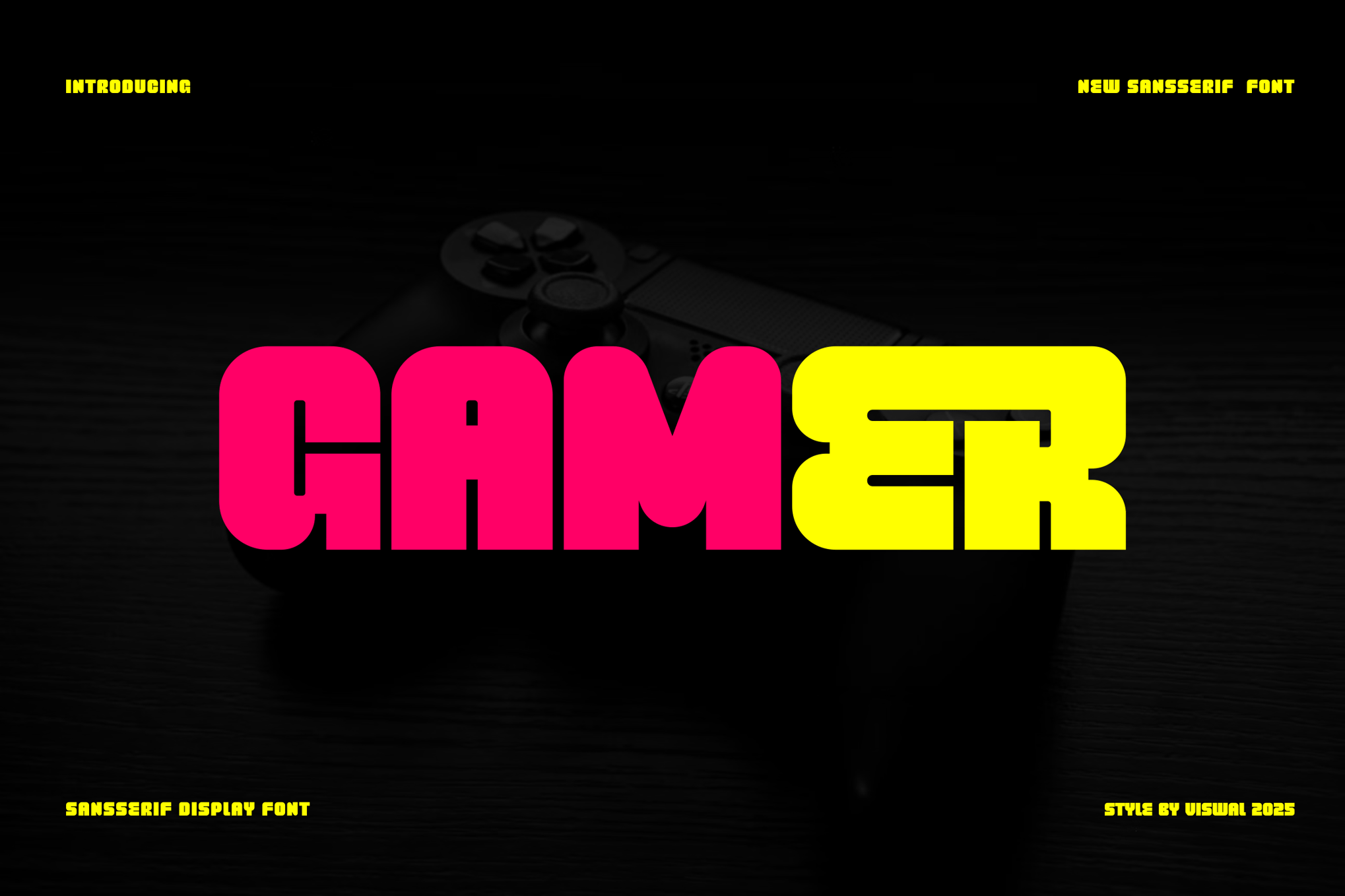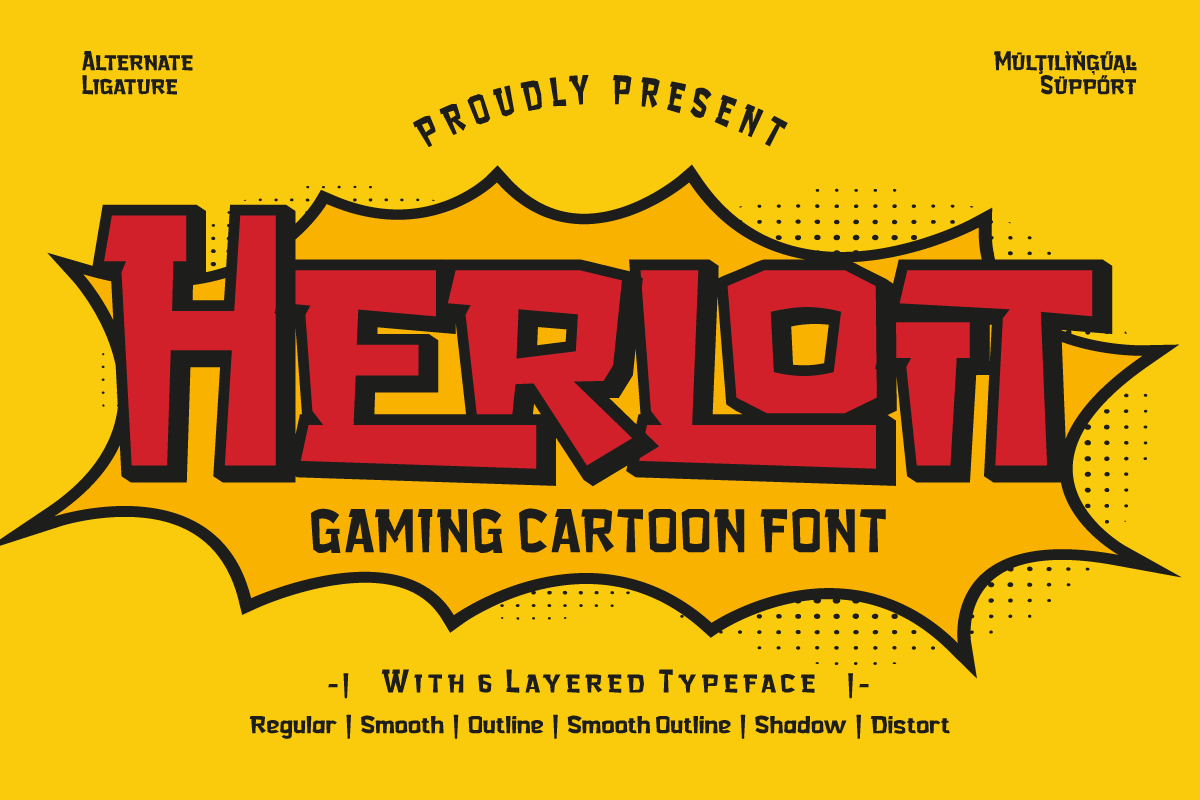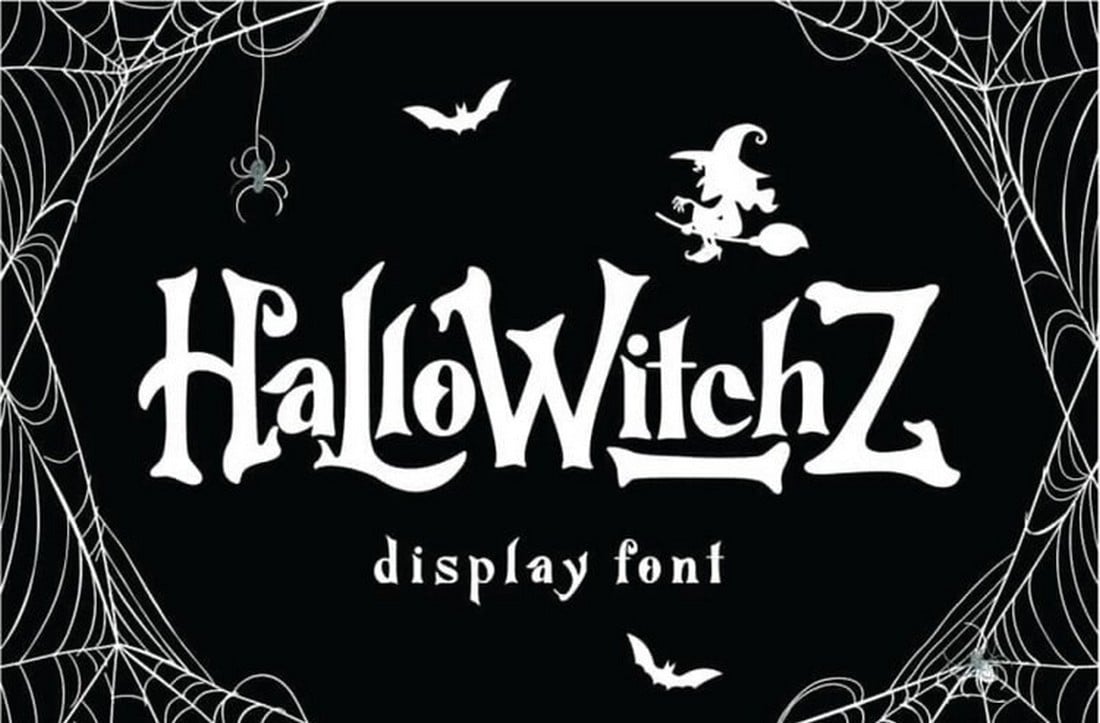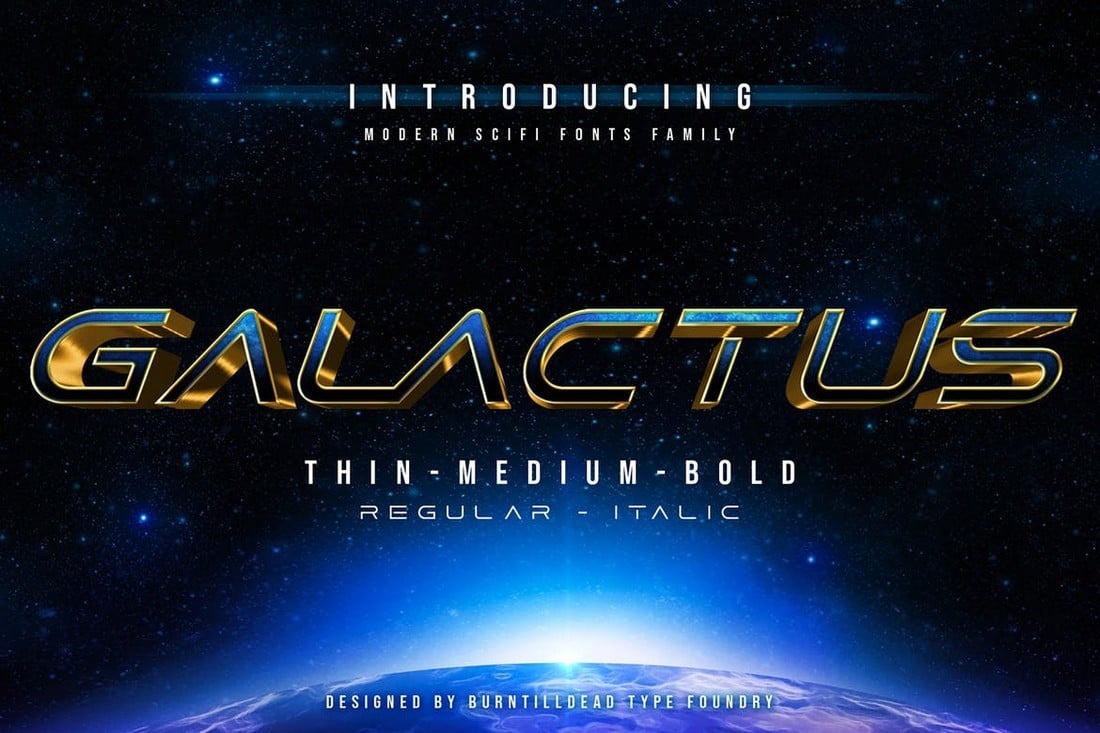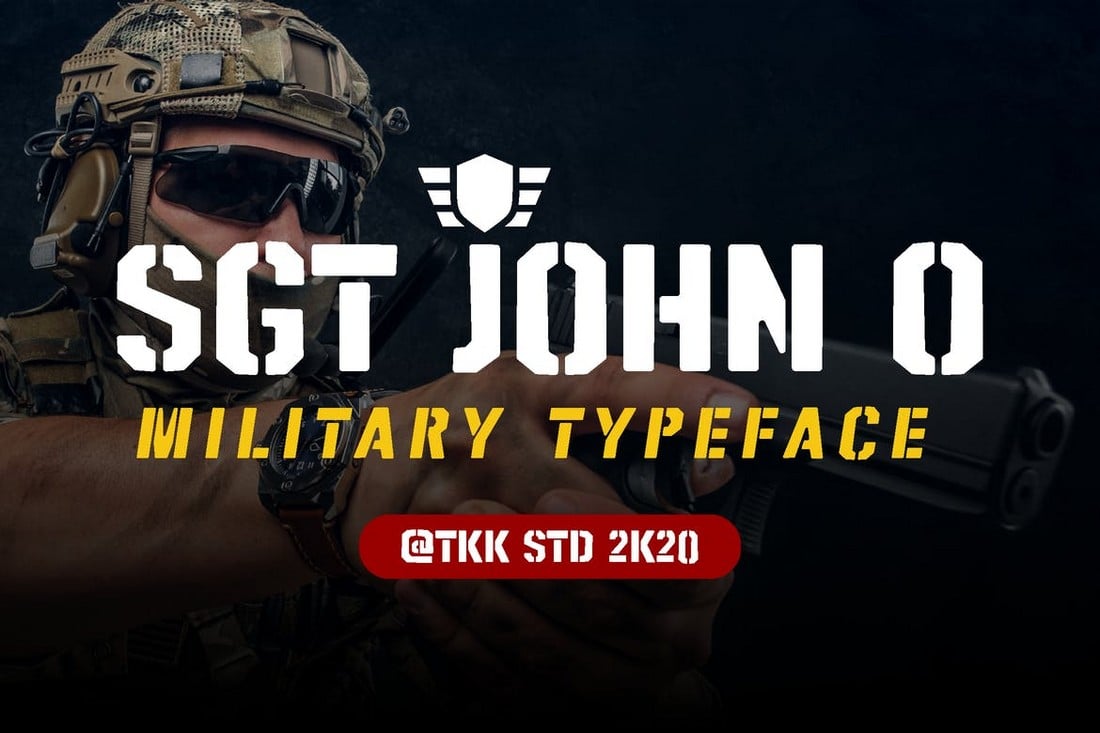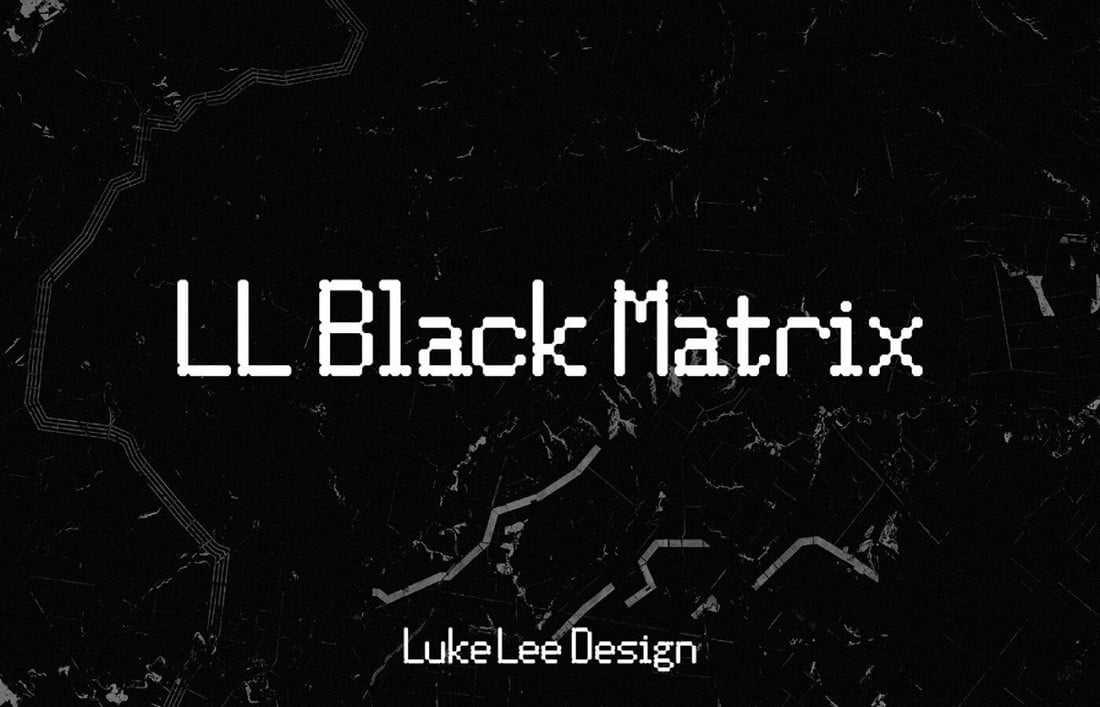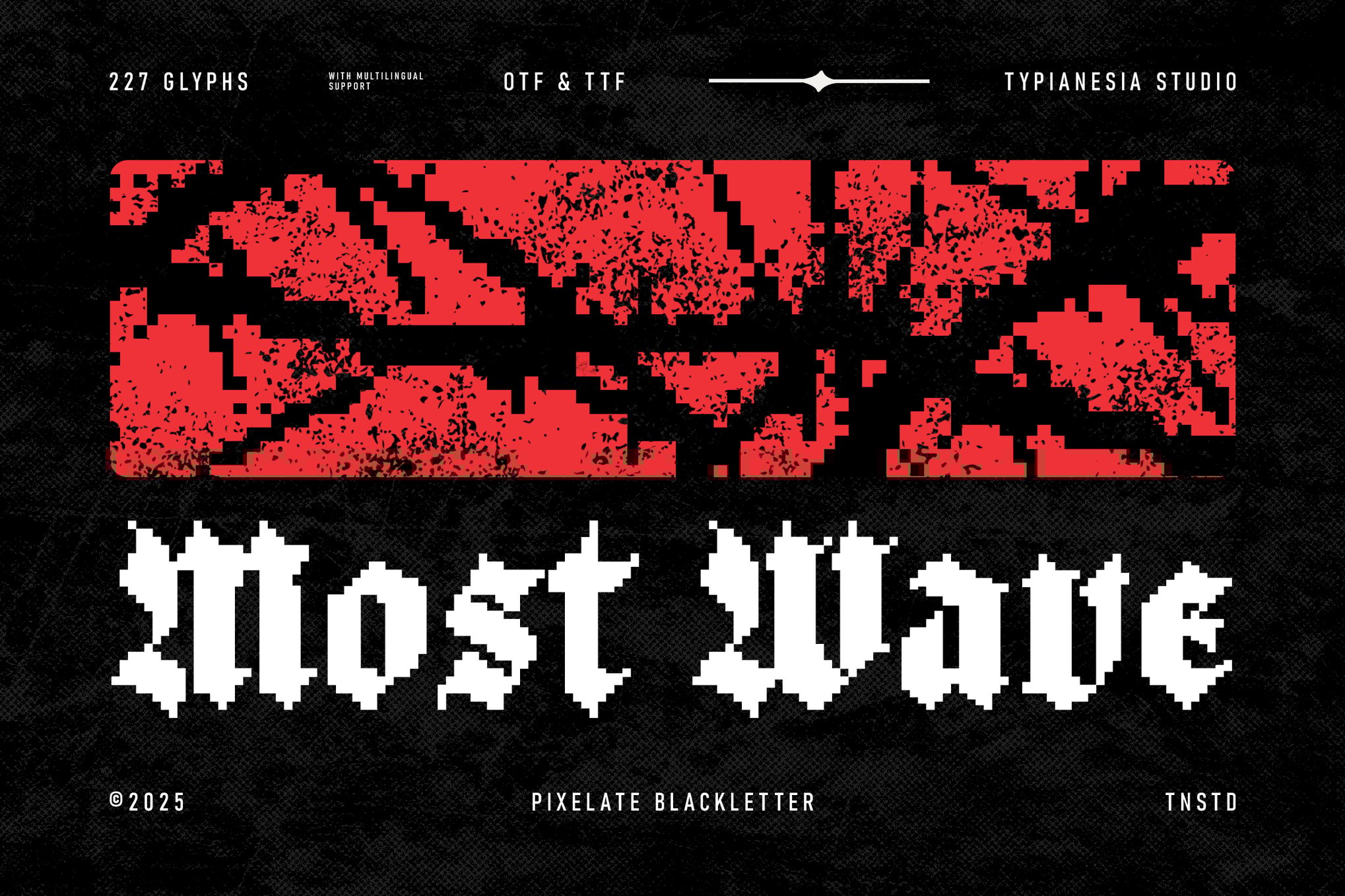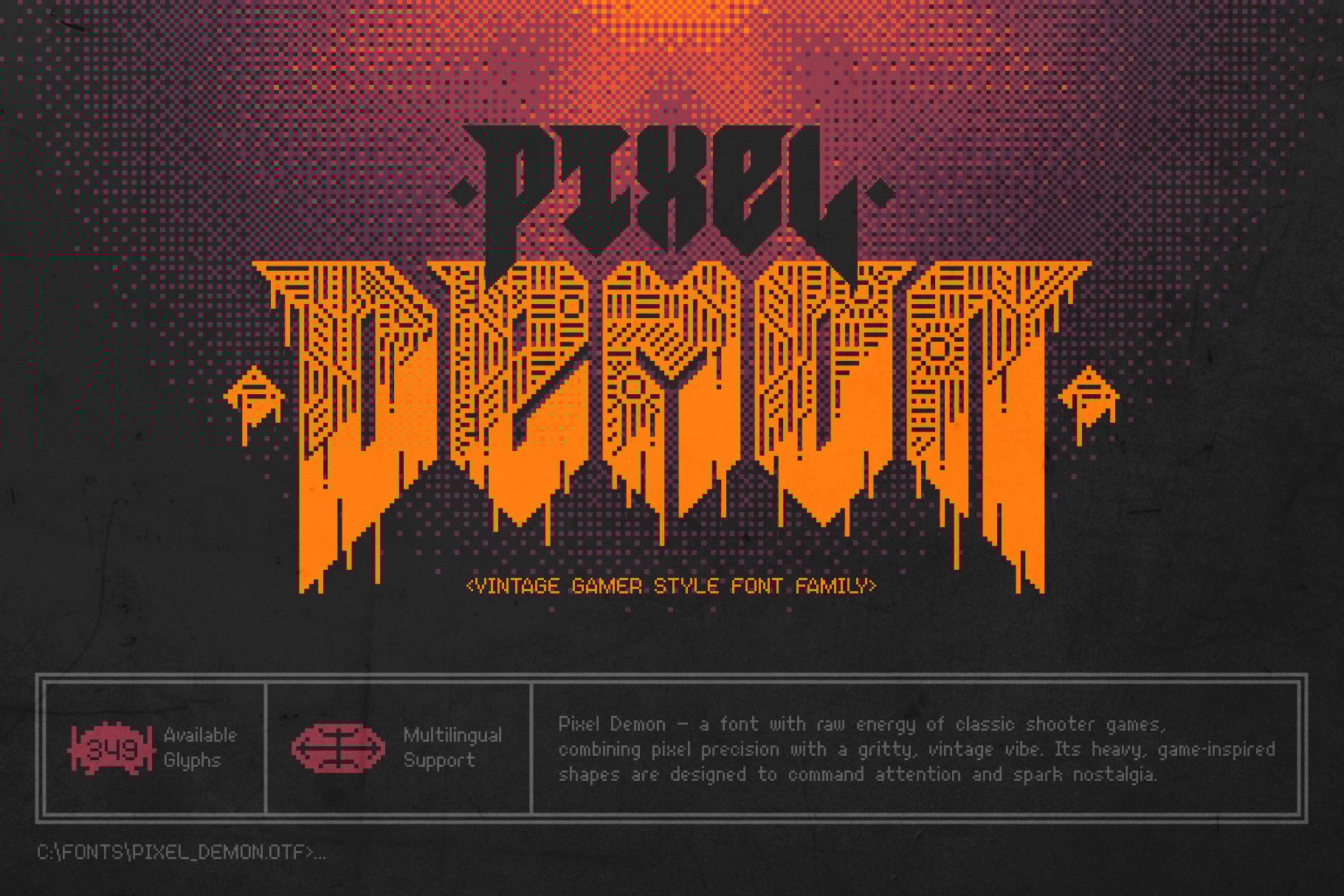
The gaming industry is now even bigger than Hollywood and it continues to grow every year. Great designs are in fact partly responsible for the success of many great video games.
Whether it’s the colorful graphics on a landing page website, social media posts used to promote games, or the preview images on the App Store page, it’s these designs that attract more people to download games and try them out in the first place.
If you’re a designer working on promoting a game, finding an appropriate font should be one of your top priorities. We handpicked some cool gaming fonts to help you get started.
These fonts come in all kinds of styles and designs. You can use them to design promotional material for games or even craft titles for your YouTube covers and Twitch profiles. Check them out below.
Game Paused – Modern Gaming Font
This font collection offers six unique gaming fonts that evoke modern pixel game nostalgia. Each style – Regular, Slant, Outline, Extrude, Outline Slant, and Extrude Slant – provides rich retro character. This font is an ideal addition to any pixel game-inspired project.
Retro Pixel – Classic Gaming Font
Retro Pixel is a gaming-themed font that captures the charm of the golden gaming era. This pixel-inspired typeface is perfect for gaming logos and pixel art. With features like OTF, TTF, WOFF files, and multilingual support, it works seamlessly on both Mac and Windows, adding a vintage arcade feel to your projects.
Pixel Demon – Vintage Gamer Font
Pixel Demon font channels the raw energy of classic shooter games with its pixel-perfect, vintage-inspired design. Ideal for retro posters, gaming graphics, and digital art, it features automatic alternate characters for unique effects (English alphabet only). With six fonts, including layered and melting styles, it supports most European languages and offers a versatile creative toolkit.
Gamer – Game & Sport Font
This font perfect for enhancing your design’s message. Ideal for use in logos, branding, posters, and more, it features uppercase, lowercase, numerals, punctuation, and OpenType features. Available in OTF, TTF, and WOFF formats, it seamlessly complements other fonts for amazing design possibilities.
Most Wave – Pixelate Blackletter Game Font
Most Wave is a modern pixelated blackletter game font that blends Gothic elegance with retro 80s arcade vibes. Its distinct 8-bit pixel structure makes it ideal for digital or print projects like game titles, music branding, and event posters. Offering a unique, textured style, Most Wave ensures designs are both powerful and nostalgic.
Herloit – Gaming Display Font
Herloit is perfect for gaming enthusiasts and designers seeking a unique flair for their projects. Offering six styles, including Regular, Smooth, and Distort, it allows for endless creativity. Flexible and versatile, it supports various formats and languages, enhancing your game design with artistic elements and futuristic vibes, no extra software needed.
Techno Tribe – Retro Game Font
Techno Tribe is a striking display font with 3 unique styles, inspired by futuristic aesthetics, tribal designs, and retro gaming. Suitable for a range of genres, its bold style can boost your branding, logos, packaging, games, or even event posters. Available in multiple formats, it comes with standard, ligature, and alternate glyphs.
Game Quotes – Bold Serif Gaming Pixelate Font
This is a retro gaming-inspired font that seamlessly blends vintage with modern bold serif design. Its pixelated style emulates nostalgia, while the bold serif details render a contemporary touch. Equipped with uppercase, lowercase, numbers, ligatures and alternate letters, it’s a versatile font suitable for video game titles, posters, branding, merchandising, and more.
Mexicalo – Fantasy Game Font
Mexicalo is a decorative gaming font designed for fantasy-themed design projects. Ideally suited for gaming designs, its unique craftsmanship also makes it versatile in logo branding, stationery design, and modern advertising. Whether you’re crafting a fantasy novel, designing a blog, or planning special events, Mexicalo is a reliable choice for your project.
Cross Gaming – Creative Video Game Font
Cross Gaming is a unique and versatile gaming font. Perfect for sprucing up your designs, it’s ready to level up everything from gaming labels and movie titles, to gig posters, album covers, and logos. The font comes in OTF, TTF, and WOFF formats to maximize convenience and compatibility.
Bit Game – Retro Pixel Font
Bit Game is a retroi style font perfect not only for game design but also other projects like movie or documentary titles, posters, book covers, and logos. The font comes as an easily downloadable ZIP folder, containing otf and ttf formats. Its distinctive retro appeal makes for eye-catching headlines and adds unique flare to any creative endeavor.
Long Games – Modern Gaming Font
Long Games is an elegant, fresh, and ultra-modern brush font. This set features multilingual support and includes files in both .ttf and .otf formats. Provided by Khurasan with love, this font is perfect for sprucing up your gaming title screens, video thumbnails, and more.
Space Game – Futuristic Gaming Font
Space Game is a dynamic gaming font that sports a fun and futuristic vibe. It features lowercase and uppercase characters, numerals, standard OpenType punctuations and accents, allowing it to support multiple languages. The package also comes with ligatures and an alternative style stylistic set.
Giselle – Pixel Art Gaming Font
Giselle is a pixel art gaming font perfect for various creative projects. It can be an excellent choice for logos, gaming, branding, t-shirts, magazines, websites, and posters. It comes with uppercase and lowercase letters, numerals, punctuation, multi-lingual support, and Opentype features, making it versatile and easy to use.
Rocabe – Retro Gaming Font
Rocabe is a retro gaming font that recalls the charm of classic arcade games. This pixel-style typeface elevates the aesthetic of old-school games to meet contemporary design standards. Besides providing authenticity to vintage-themed designs, it’s adept at nurturing an indie game’s unique look. Offering OTF, TTF, WOFF, WOFF2 file fonts with all glyphs.
Retro Video Game Font
It’s only appropriate to start a gaming fonts collection by paying homage to retro video games. This font features an old-school pixelated letter design. Not only that but it also comes with 17 pixelated martian designs inspired by the classic arcade game. You can use those to add a creative look to your designs.
Ethnique – Ethnic Gaming Font
As the name suggests, Ethnique is an ethnic typeface perfectly suited for online games that demand a tribal, and ancient vibe. It comes with a full set of uppercase and lowercase letters, numbers, punctuation, and multilingual support.
Gameria – Blocking Gaming Font
Gameria is a fun, and playful font suitable for a range of online games. It’s an excellent contender for your cash if you truly value standing out from the pack. It’s simple to install, and works on both PC and MAC.
Black Block Gaming Font
Black Block is an incredibly unique and remarkable font especially designed for online games for kids. It has a quirky, and cheerful vibe that instantly draws readers’ attention, and keep it there. Don’t hesitate to take it for a spin.
Quickstarter – Free Video Game Font
If you’re looking to get your hands on a superior quality gaming font without splurging on a premium product, Quickstarter is the right choice for you. It’s a modern and sophisticated typeface suitable for online games with racing theme.
RedPixel – 3D Gaming Font
If you’re creating a futuristic, and high-tech online game, you must add RedPixel to your shortlist. It’s a stunning 3D blocky font that will elevate your designs in an instant, and let you focus on the more important things like developing, and promoting the game.
River Adventurer – Block Gaming Font
If you’re working on a game that features wildlife or jungle environments, this gaming font is perfect for designing the marketing materials for your game. It features a big blocky design with textured characters. The font includes both uppercase and lowercase letters.
Rock Boulder – Gaming Font
This gaming font features a cartoon-like character design that makes it a great choice for designing titles and headings for kids’ games. Of course, you can also use it to design social media covers and other designs as well. It comes in OpenType, TrueType, and WebFont versions.
Guava Candy – Mobile Games Font
The creatively shaped characters of this font make it most suitable for designing promo designs for mobile games. It especially resembles the designs used in mobile games like Candy Crush. This font also includes uppercase and lowercase letters as well as numbers and punctuation.
Vanderick – Fantasy Game Font
Vanderick is a font that features a design inspired by fantasy games. It comes with a Gothic-themed letter design that’s ideal for crafting titles for fantasy and horror games, as well as for gaming channels and streamers.
Hermes – Free Cyberpunk Gaming Font
This is a free font you can use with personal projects. It features a stylish letter design inspired by cyberpunk games. It’s perfect for designing everything from gaming logos to titles for your social media profiles.
Speed Beast – Free Gaming Font
Speed Beast is another great free font you can use to craft designs related to racing games. It comes with a set of bold and modern letters. And it’s free to use with personal projects.
Jungle Adventurer – Gaming font
Another creative gaming font featuring jungle-inspired design. This font can be used to craft all kinds of gaming designs from website headers to social media designs and much more. It includes both sets of uppercase and lowercase letters.
Starzone – SciFi Gaming Font
Starzone is most suitable for designing logos, social media covers, and promo materials for futuristic and space-themed games. It comes with a set of characters that uses futuristic military-style designs.
Tsuki – Creative Gaming Font
Inspired by Japanese manga and games, Tsuki is a font that features a set of beautiful characters that are perfect for all kinds of gaming-related designs. The blocky letter design of this font will also help you craft more attention-grabbing titles and headers.
Game Over – Pixel-Style Gaming Font
You can use this gaming font to craft designs with the retro pixelated style. It includes a creative set of letters with each character featuring a unique design. The font is available in TrueType, OpenType, and WebFont versions.
Plaguard – Modern Esport Gaming Font
This font is designed with eSports teams in mind. It has a modern letter design that will allow you to craft logos, badges, and other designs to promote your eSports teams in a professional way.
Ghostlike – Free Gaming Font
You can use this free font to design modern and attractive titles for your gaming channels and social profiles. The font comes with both uppercase and lowercase letters.
Game Day – Free Gaming Font
Game Day is a free hand-drawn font that’s most suitable for designs related to sports games. It’s an all-caps font featuring lots of alternate letters. And it’s free to use with personal projects.
Grind – Bold Gaming Font
Grind is a bold gaming font that comes with a rough and textured letter design. This font can make your game titles and headings look more touch while also giving them a unique look that stands out from the crowd.
Bitbybit – Pixel Gaming Font
Bitbybit is a creative gaming font that uses a retro-themed pixelated design. This font comes with both uppercase and lowercase letters featuring adorable pixelated edges. It’s available in OpenType, TrueType, and WebFont versions.
Jamer – Retro Game Font
This font uses the same pixelated retro font design but in a different style. It comes with blocky letters that look like objects from games like Minecraft. The font also features a unique 3D look as well. It’s available in OpenType format.
Herona – Esport Logo Font
Herona is a great font you can use to design a logo, badge, or other social media designs for eSports teams. The font features a creative and stylish design that looks great when used with outlines and shadows.
Averey – Modern Gaming Font
Averey is a modern font that features a design inspired by video games such as Tetris. The font is perfect for everything from gaming-related designs to posters and flyers. It includes uppercase and lowercase letters, as well as symbols, multilingual support, and much more.
Raider – Free Cool Gaming Font
Raider is a very unique font that comes with a set of letters with flaming designs. It’s perfect for attractive gaming creations. The font is also free to use with your personal and commercial projects.
HalloWitchZ – Free Horror Gaming Font
HalloWitchz is a Halloween-themed free font you can use to create spooky titles for your horror games. The font is free for personal use and includes both uppercase and lowercase letters.
Maztech – Gaming & Technology Font
Maztech is a unique font that combines military technology style with futuristic designs to create a very uncommon letter design. It’s perfect for all kinds of modern video game-themed designs, especially for logos.
Exo Space – Futuristic Display Font
Exo Space is another modern font with a futuristic design. This font is most suitable for space-themed gaming designs. You can also use it for various other marketing designs as well. The font includes both uppercase and lowercase letters.
Crash Landing – Playful Gaming Font
If you want to add a playful title for your game or website, this font will come in handy. It features a fun and quirky design that grabs attention. The font comes with numbers and punctuations as well as multilingual support.
Galactus – Futuristic Gaming Font
If you want to design a title with a sci-fi design, Galactus is a great choice to get started. It comes with a stylish cinematic design featuring multiple weights ranging from thin to bold and italics. The font also includes ligatures as well.
SGT. Jhon O – Stencil ArmyFont
This font is most suitable for gamers who create content related to military-themed games. The military stencil design of the font will definitely fit in nicely with the theme of your channel.
LL Black Matrix – Free Pixel Gaming Font
This free font is perfect for creating pixelated titles for your gaming-related designs. The font includes 300+ glyphs and it’s completely free to use with personal and commercial projects.